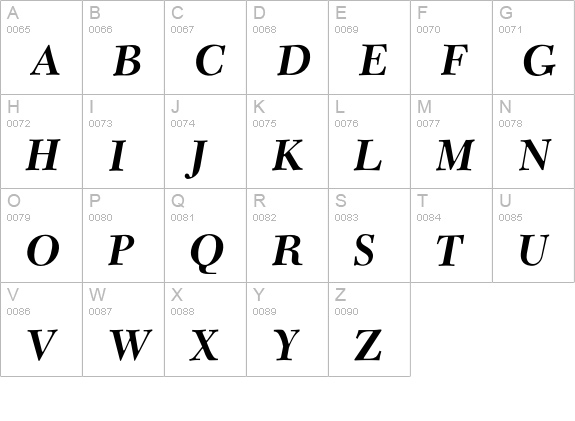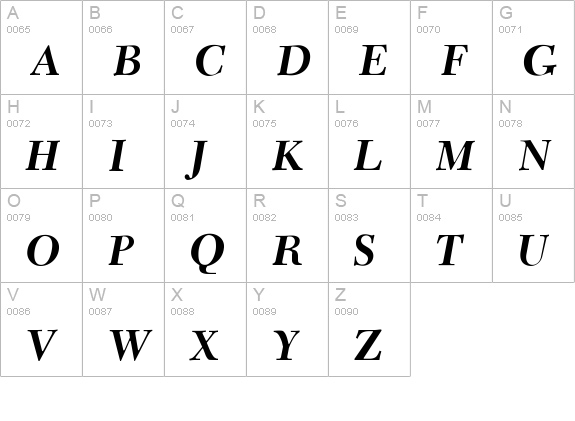
CameliaBoldItalic Font Details
The CameliaBoldItalic font is a stunning display of elegance and sophistication, perfect for adding a touch of luxury to your designs. Its bold and italic styling creates a unique and eye-catching look that is sure to make a statement. With its flowing curves and graceful flourishes, this font exudes a sense of glamour and charm. Best of all, CameliaBoldItalic is available for free download at FontsMarket.com, making it easily accessible for designers and creatives looking to enhance their projects with a touch of class. Whether you're designing a wedding invitation, a logo for a high-end brand, or simply want to add a touch of elegance to your website, CameliaBoldItalic is the perfect choice. Download this exquisite font today and elevate your designs to new heights of sophistication.